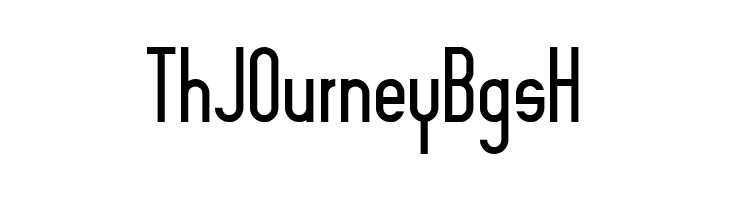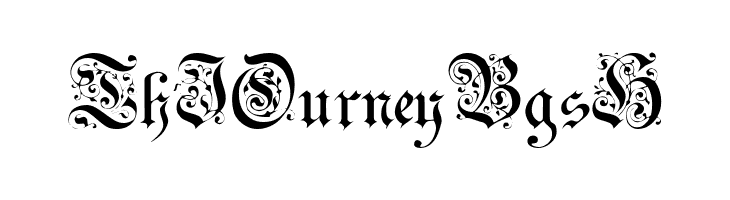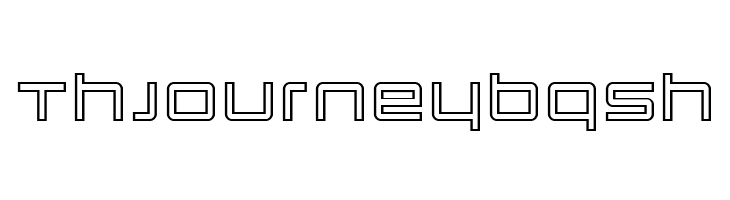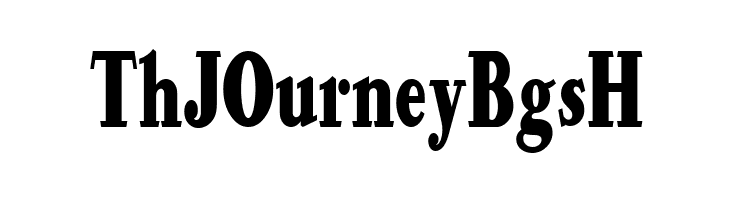
( Fonts by Dieter Schumacher )
A modern, sleek font with elongated, narrow characters and a minimalistic style.
An ornate Gothic-style font with intricate flourishes and sharp serifs.
A geometric outline font with a futuristic and modern aesthetic.
A bold, vintage serif font with strong serifs and a classic aesthetic.